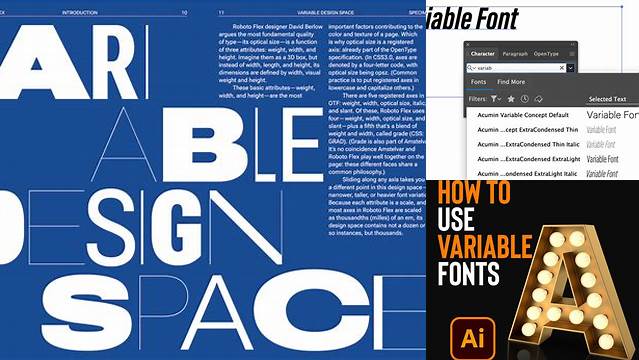
Variable Fonts In Illustrator CC: A Designer's Guide
Unlocking Design Potential: Variable Fonts in Adobe Illustrator CC
Hey design enthusiasts! Ever felt like your typography was stuck in a rut? Wishing you could tweak your fonts on the fly, creating unique looks without juggling a million different font files? Well, variable fonts are here to save the day, and Adobe Illustrator CC is your playground. Let's dive into how this awesome technology is changing the game and how you can wield its power.
What are Variable Fonts, Anyway?
So, what's the buzz about variable fonts? Think of a traditional font as a single, fixed entity. You've got your regular, bold, italic, and maybe a few weights. Each one is a separate file, which can lead to a bit of clutter and limited flexibility. Variable fonts, on the other hand, are like a Swiss Army knife of typography. They pack multiple font styles into a single file, allowing you to adjust characteristics like weight, width, slant, and even optical size smoothly. This means you can create an infinite range of variations within a single font family. It's like having a custom-designed font at your fingertips!
This is a game-changer for several reasons. First, it dramatically reduces file sizes. Instead of downloading a whole font family with dozens of files, you get one neat package. Second, it offers incredible design flexibility. You can create subtle variations for a more refined look or go wild with extreme adjustments for a truly unique style. Finally, variable fonts are great for responsive design. They adapt beautifully to different screen sizes, ensuring your text always looks its best.
Getting Started with Variable Fonts in Illustrator CC
Alright, let's get our hands dirty! Using variable fonts in Adobe Illustrator CC is surprisingly easy. First, you need to make sure you have access to a font that supports this technology. Many foundries are now creating variable fonts, and you can find them on websites like Google Fonts, Adobe Fonts, and various other font marketplaces. Look for fonts that specifically mention "variable" or have an "axes" control. These are the telltale signs.
Once you've found and installed a variable font, open Illustrator CC and create a text object. Select your chosen font from the Character panel. You'll notice a new section in the panel, usually marked with slider controls or numeric input fields. These are your "axes." Each axis controls a specific characteristic of the font. Common axes include weight (how bold or light the font is), width (how condensed or expanded it is), and slant (how much it's italicized). Some fonts might have additional axes for things like optical size or even specific stylistic variations.
Playing with these sliders or input fields is where the fun begins! As you adjust the axes, you'll see the font instantly transform. You can experiment with different combinations to find the perfect look for your design. Want a super-bold, condensed headline? Easy! Need a subtle variation for body text? Just a few clicks away. It's all about exploring the possibilities and finding what works best for your project.
Mastering the Art of Variable Fonts: Tips and Tricks
Okay, you've got the basics down, but how do you truly master variable fonts in Illustrator CC? Here are a few tips and tricks to elevate your typography game.
- Experimentation is Key: Don't be afraid to play around with the axes. Try extreme settings, subtle adjustments, and everything in between. You might stumble upon a look you never imagined.
- Consider Context: Think about where your text will be used. A website headline might benefit from a bolder, more dramatic style, while body text should be readable and clean. Consider the overall tone and style of your design.
- Create Styles: Once you've found a combination of axes you love, save it as a character style. This will allow you to easily apply the same look to other text elements throughout your design. It's a huge time-saver!
- Explore Font Combinations: Just like with regular fonts, you can mix and match variable fonts to create interesting typographic pairings. Try using different axes within the same font family or pairing a variable font with a contrasting static font.
- Check for Compatibility: While variable fonts are widely supported, make sure your chosen font works well across different platforms and browsers. Test your designs on various devices to ensure they look consistent.
Variable Fonts: The Future of Typography?
Is this the future? Absolutely! Variable fonts are more than just a trend; they're a fundamental shift in how we think about and use typography. They offer unparalleled flexibility, reduce file sizes, and open up exciting new possibilities for creative expression. As the technology matures and more foundries release variable fonts, they will become even more accessible and integrated into our design workflows.
Illustrator CC has embraced this technology, providing a user-friendly interface for experimenting with variable fonts. With a little practice, you can unlock their full potential and transform your designs. So go out there, download some variable fonts, and start playing! You'll be amazed at what you can create.
Variable fonts and Adobe Illustrator are a great duo. As technology improves, expect to see even more exciting developments in this area. Designers will have even more control and flexibility. This means that the future of typography looks really exciting!
So, there you have it. Variable fonts and Illustrator are a winning combination. They offer unparalleled flexibility and design options. Go out there, experiment, and see what you can create. It's time to embrace the power of variable fonts in Illustrator and take your designs to the next level.